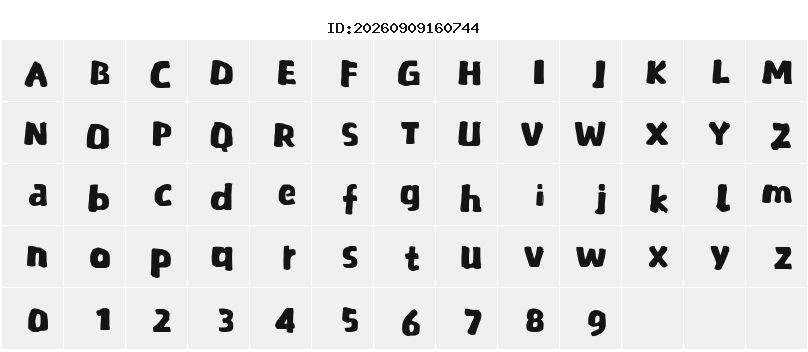
字潮慵懒懒 Preview
• Font Name: 字潮慵懒懒
• Full Font Name: 字潮慵懒懒
• Character Count: 6953
• Designer: 潍坊字潮文化传播有限公司
About 字潮慵懒懒.TTF
字潮慵懒懒.TTF is a modern, elegant sans-serif font designed for ultimate readability and visual harmony. Perfect for branding, headlines, web design, and print materials.